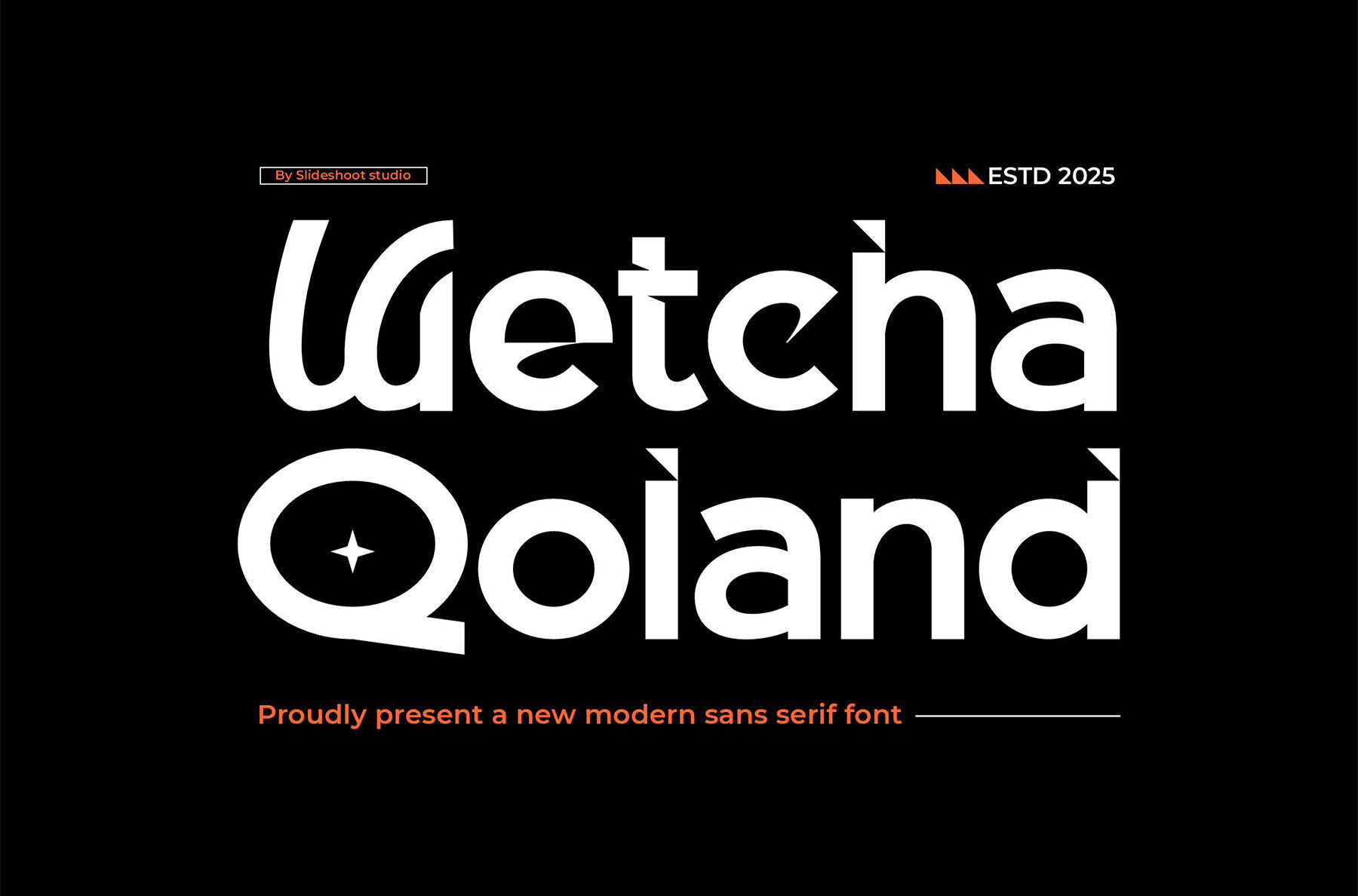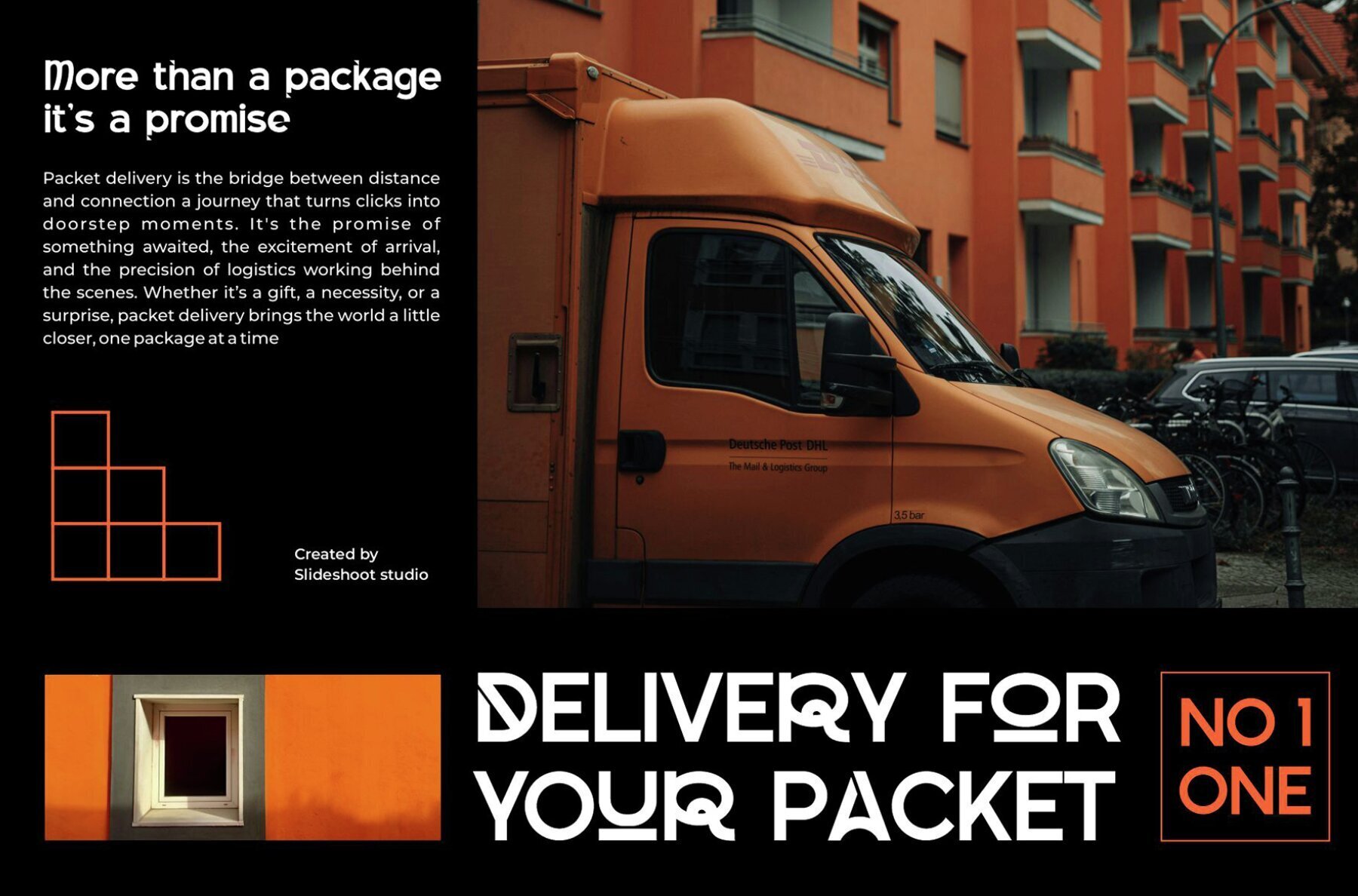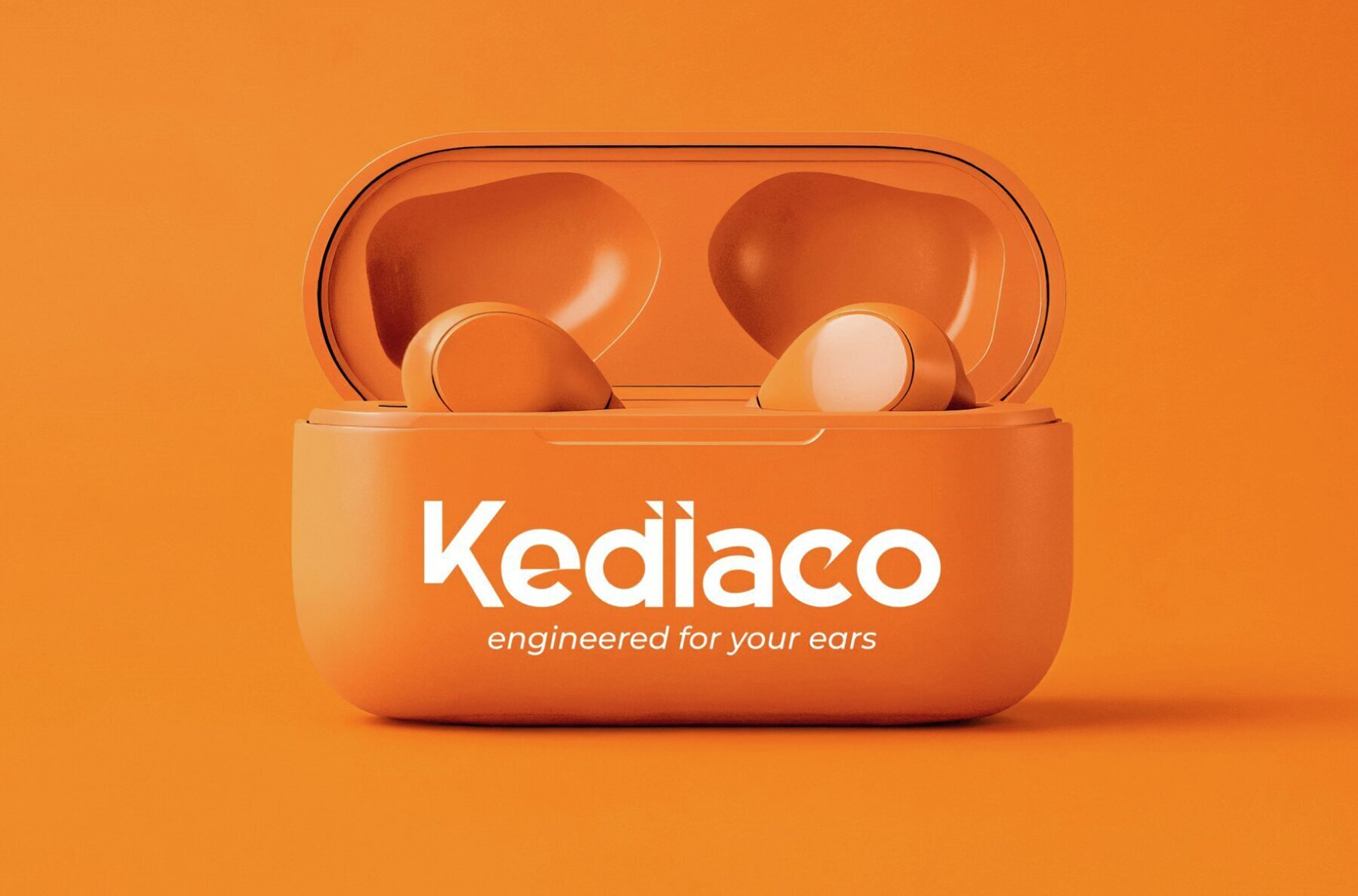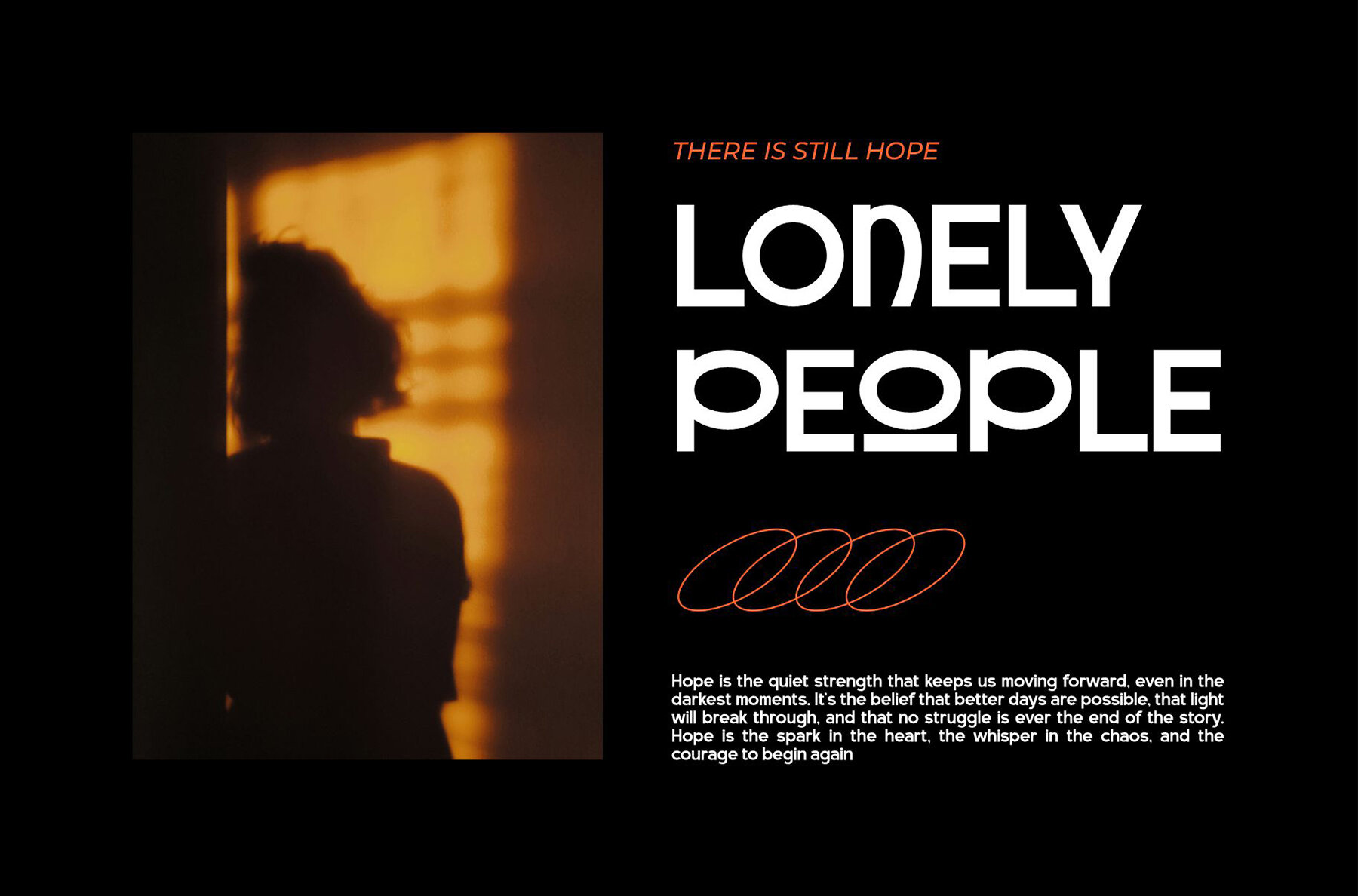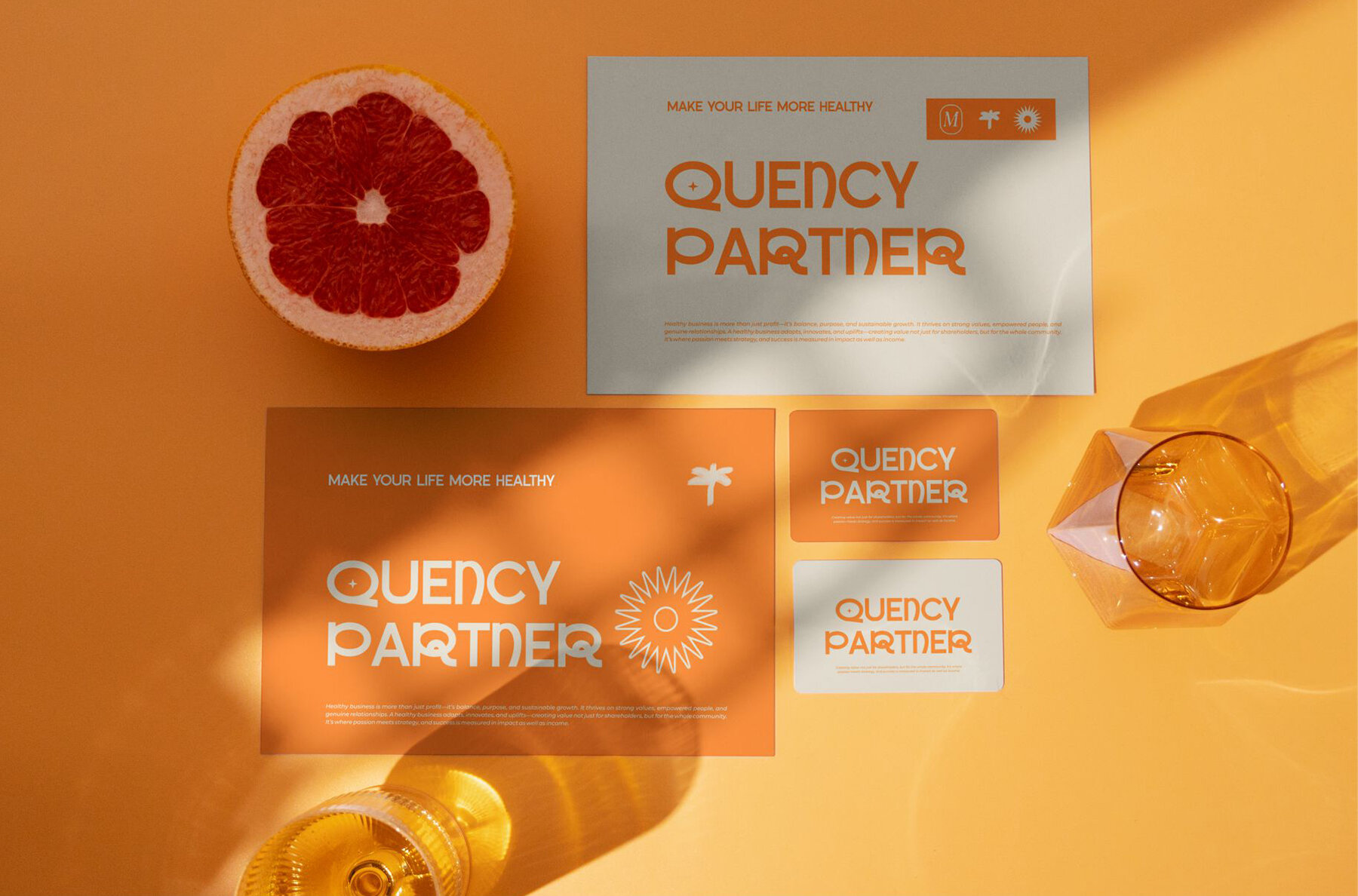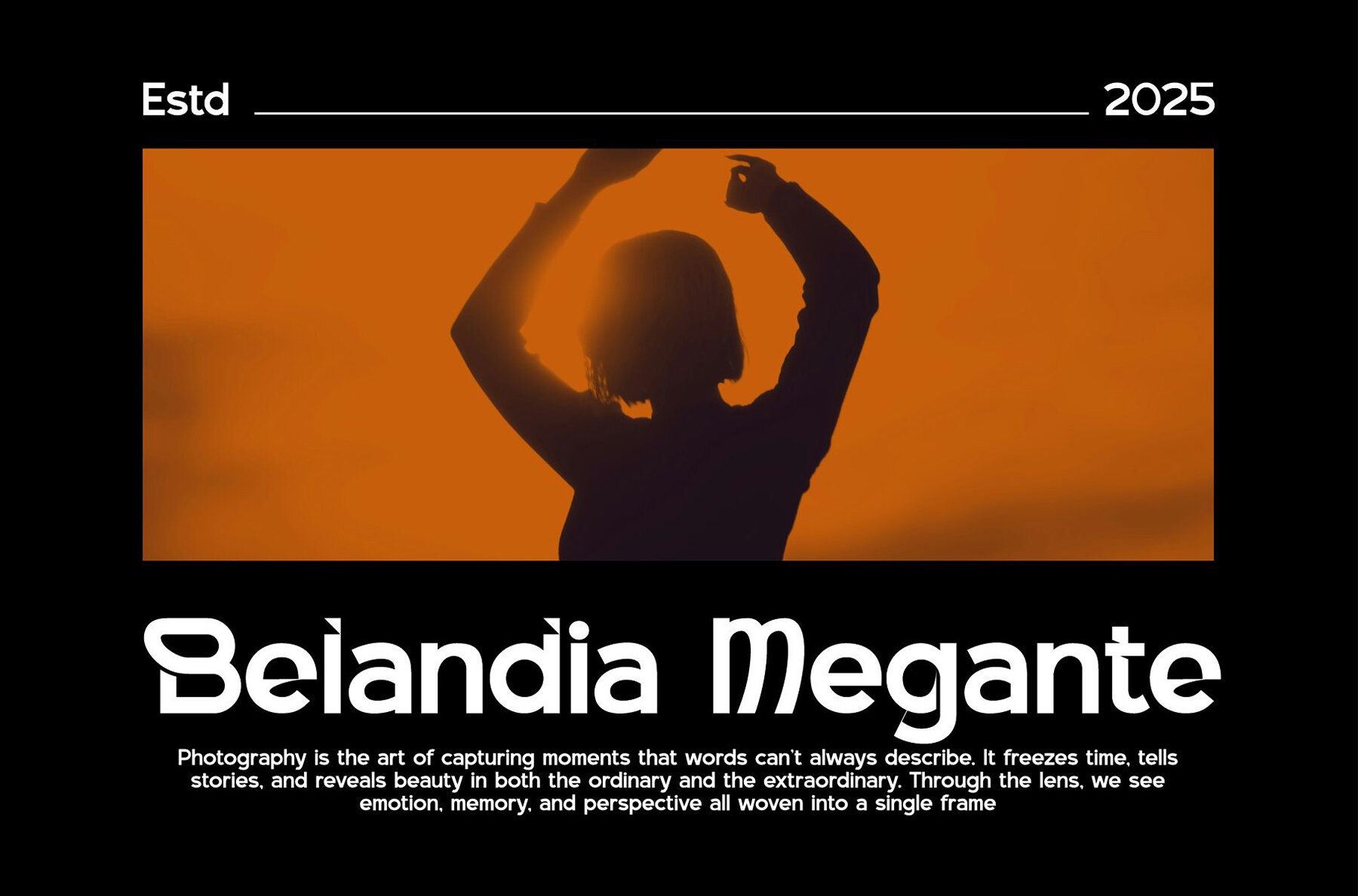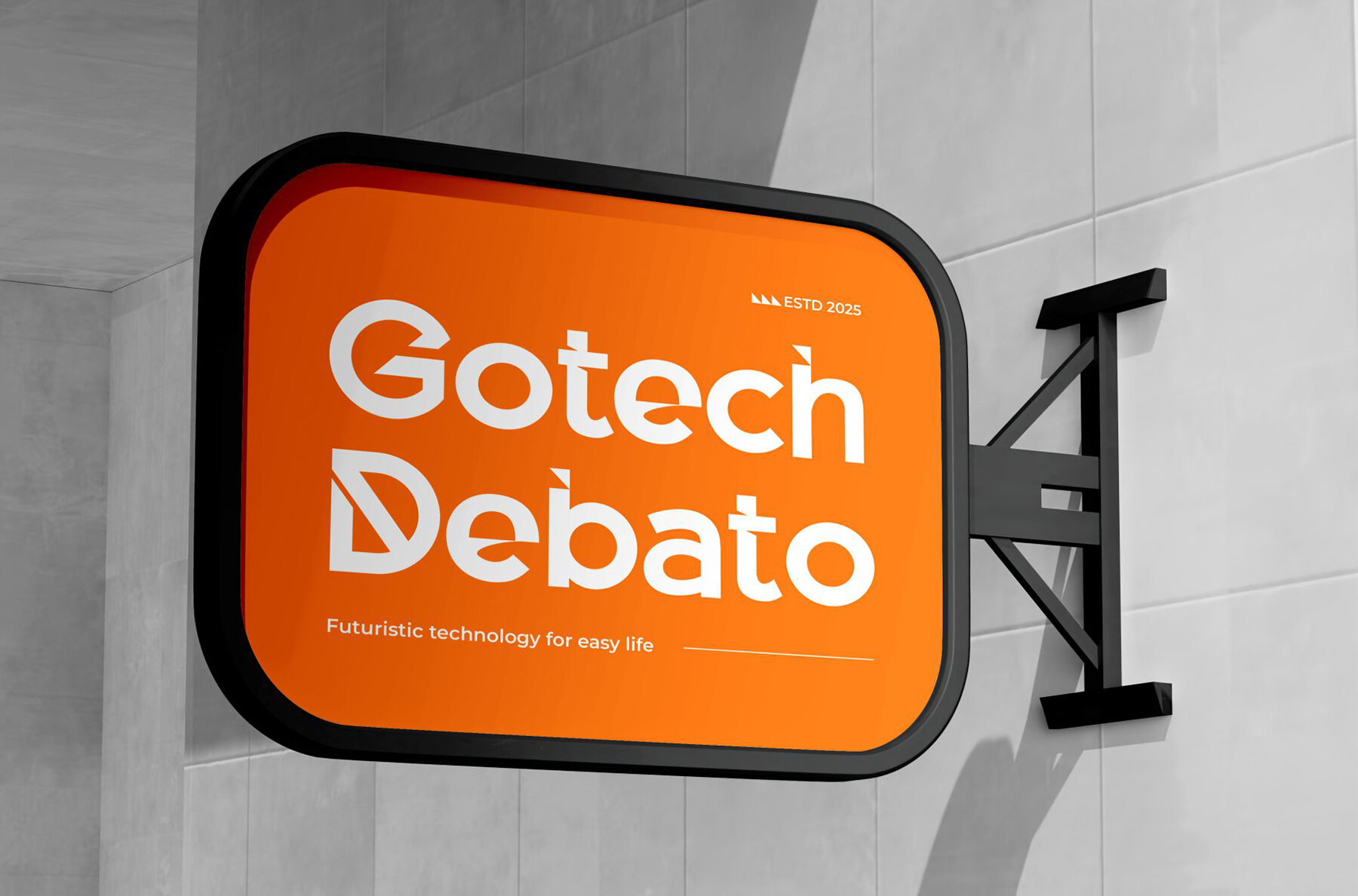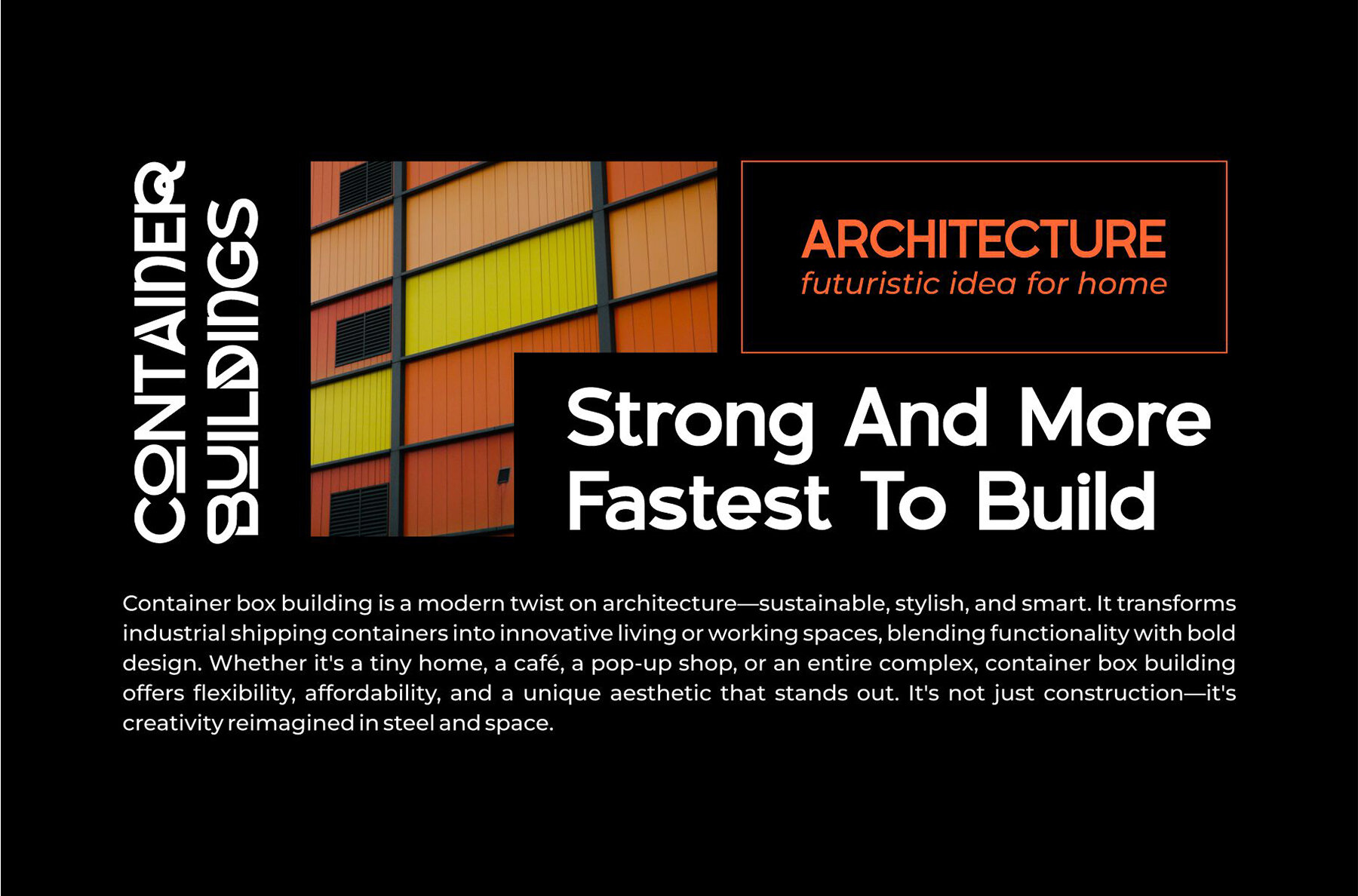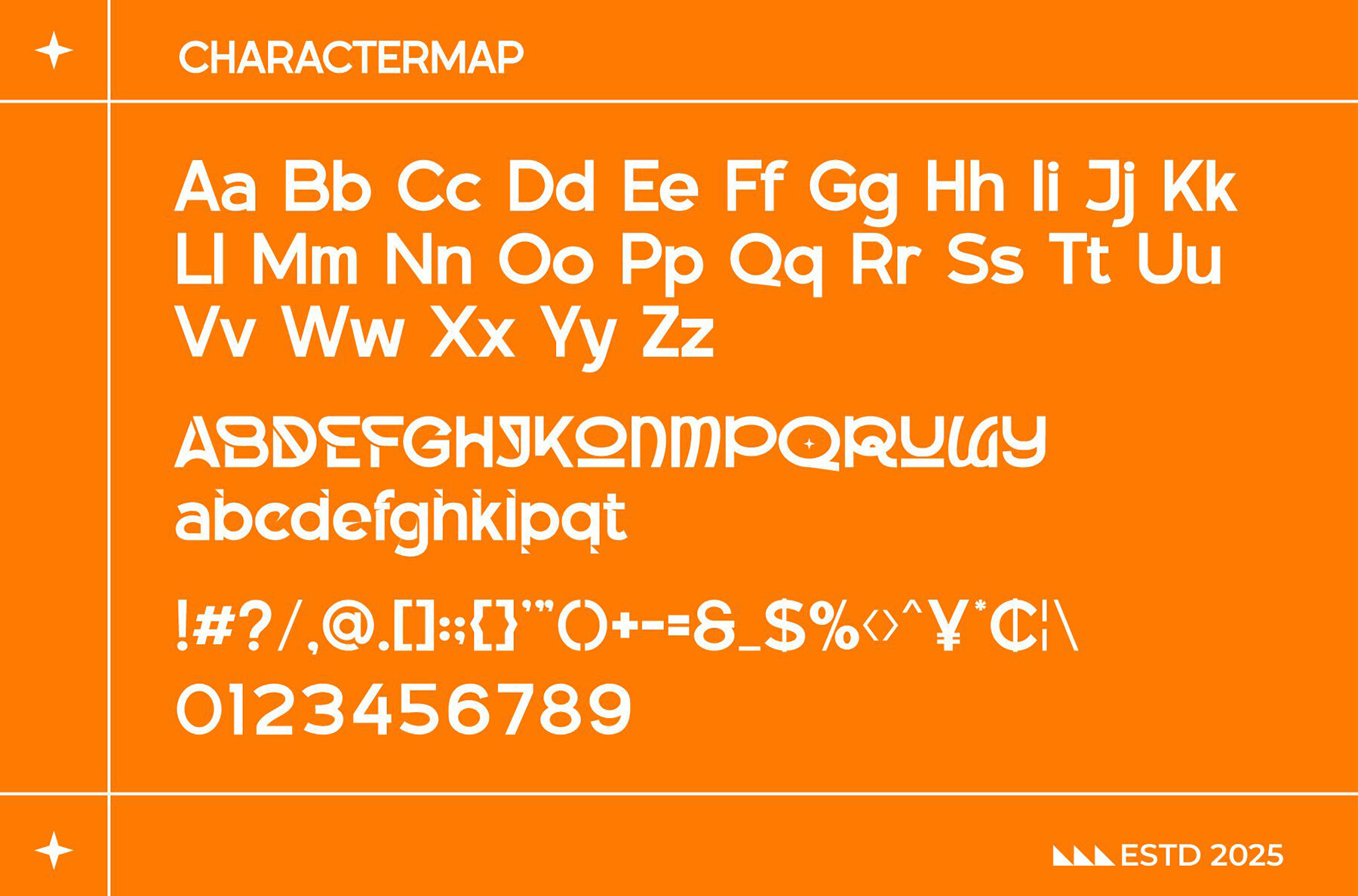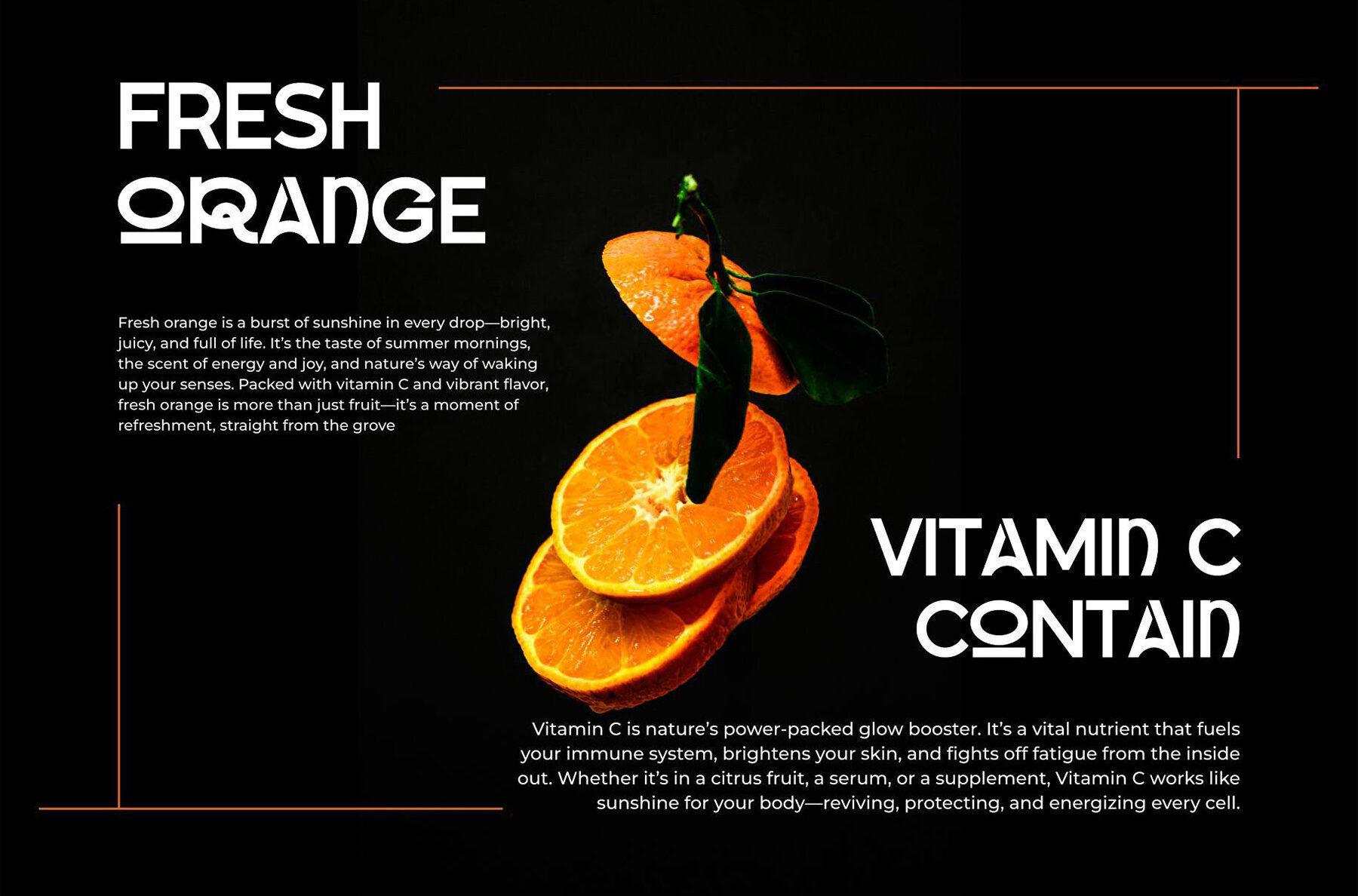
Wetcha Qoland Font
Wetcha Qoland
Discover the charm of Wetcha Qoland, a modern sans serif font that is trendy, bouncy, and irresistibly cute. Its distinctive wood-themed character makes it a perfect choice for creative projects. Whether you're designing invitation cards, company logos, movie titles, or brand identities, this font adds a unique touch to any design.Wetcha Qoland: A Playful Sans Serif Delight